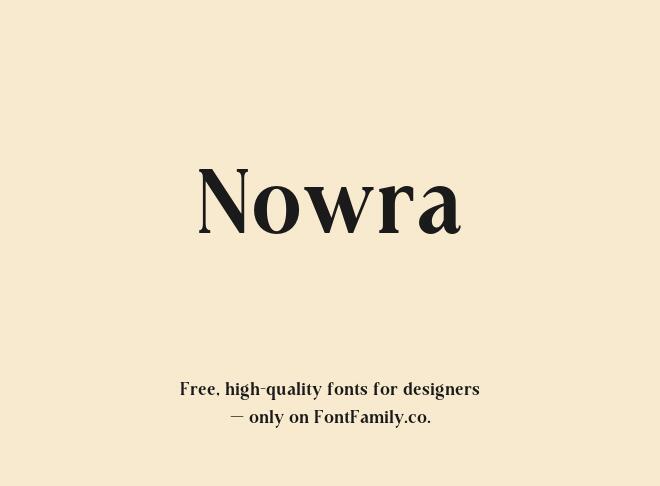
Nowra Font
Nowra Font, designed by Atipo Foundry, is a modern, geometric, and display typeface that showcases a unique blend of sophistication and versatility. Its clean, crisp lines and well-balanced letterforms make it an excellent choice for both print and digital designs. The font's modern and geometric aesthetics make it ideal for logos, headers, and branding purposes. Compared to other fonts, Nowra stands out due to its distinctive character design. It is a great choice for designers who are looking for a font that can elevate their design and communicate their message effectively. With its open font license, Nowra is free to use, making it a cost-effective choice for all your design needs.
Author | Atipo Foundry |